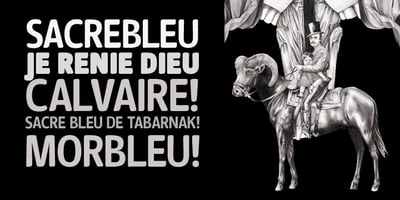
Signor
Signor font
Signor Font Family was designed by Emil Karl Bertell and published by Fenotype. Signor contains 6 styles and family package options. Signor is a soft and easygoing all caps font. Signor is very easy to use and is at its best when you need to make an impact but have a casual feeling.